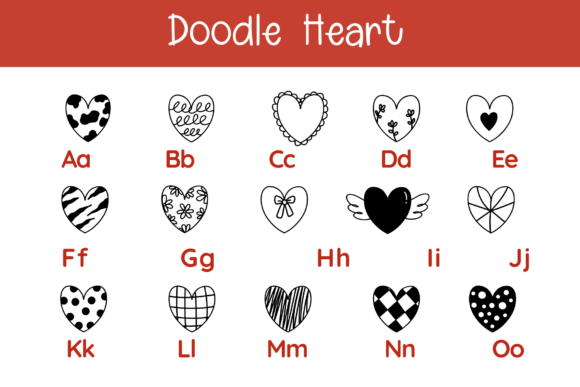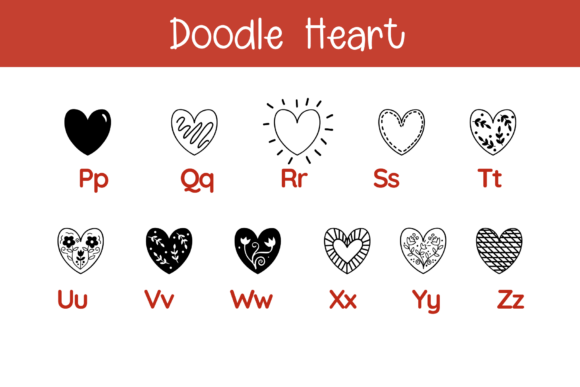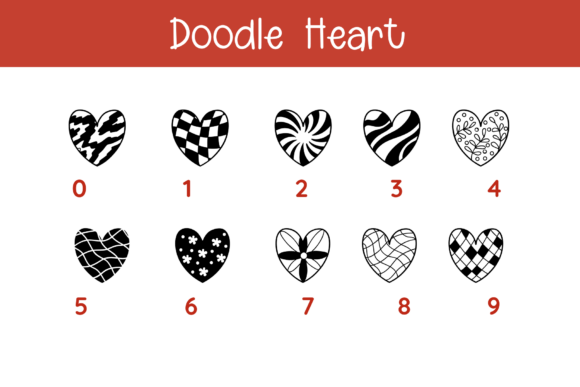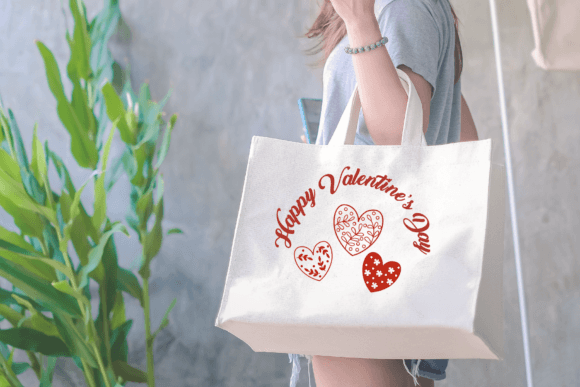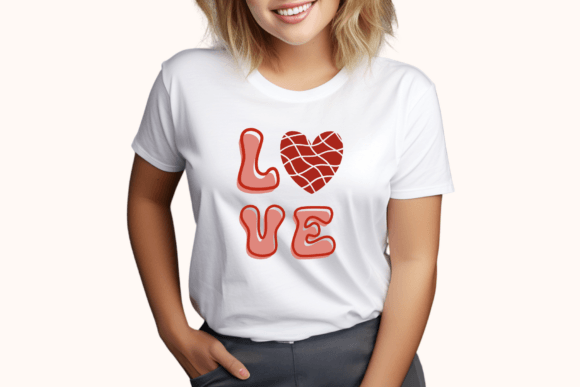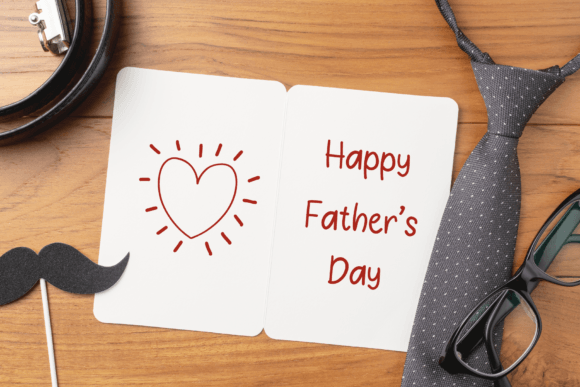
Doodle Heart Font: Add a Touch of Whimsy to Your Designs
Are you looking for a font that can add a dash of playfulness and cuteness to your designs? Look no further than the Doodle Heart dingbat font! This hand-drawn font is perfect for crafters, designers, and social media enthusiasts who want to create visually appealing and engaging content. In this article, we’ll explore the features and benefits of the Doodle Heart font and how you can use it to elevate your designs.
What is Doodle Heart Font?
Doodle Heart dingbat font is a set of hand-drawn characters that are designed to look like doodles. The font features a range of cute and playful symbols, including hearts, stars, flowers, and more. Each character is carefully crafted to have a unique, hand-drawn feel that adds a touch of whimsy to any design.
Features of Doodle Heart Font
- Cute and Playful: The Doodle Heart font is designed to be fun and playful, making it perfect for designs that require a lighthearted touch.
- Hand-Drawn: Each character in the font is hand-drawn, giving it a unique and personal feel.
- Versatile: The font features a range of characters, including symbols, shapes, and icons, making it versatile enough for use in a variety of designs.
Uses for Doodle Heart Font
The Doodle Heart font is perfect for a wide range of design projects, including:
- Digital Prints: Add a touch of whimsy to your digital prints, such as printable art, planners, and organizers.
- Mugs and T-Shirts: Use the Doodle Heart font to create custom mugs, T-shirts, and other apparel.
- Greeting Cards: Create custom greeting cards for special occasions, such as birthdays, weddings, and holidays.
- Social Media: Use the Doodle Heart font to create engaging social media posts, including Facebook and Instagram quotes and graphics.
- Planners and Organizers: Add a touch of personality to your planners and organizers with the Doodle Heart font.
Benefits of Using Doodle Heart Font
Using the Doodle Heart font in your designs offers a range of benefits, including:
- Unique and Personalized: The hand-drawn nature of the font gives it a unique and personalized feel that sets it apart from more traditional fonts.
- Time-Saving: The Doodle Heart font is easy to use and saves time, as you don’t have to spend hours creating custom illustrations.
- Consistent Branding: The font’s playful and whimsical feel makes it perfect for creating consistent branding across social media and marketing materials.
Tips for Using Doodle Heart Font
Here are some tips for getting the most out of the Doodle Heart font:
- Experiment with Colors: The Doodle Heart font looks great in a range of colors, so don’t be afraid to experiment and find the perfect color scheme for your design.
- Mix and Match: Combine the Doodle Heart font with other fonts and illustrations to create a unique and eye-catching design.
- Keep it Simple: Don’t overcomplicate your design – the simplicity of the Doodle Heart font is part of its charm.
The Doodle Heart dingbat font is a versatile and fun font that’s perfect for designers, crafters, and social media enthusiasts. With its hand-drawn characters and playful feel, it’s ideal for adding a touch of whimsy to a wide range of design projects. Whether you’re creating digital prints, custom apparel, or social media graphics, the Doodle Heart font is sure to become a favorite in your design toolkit.